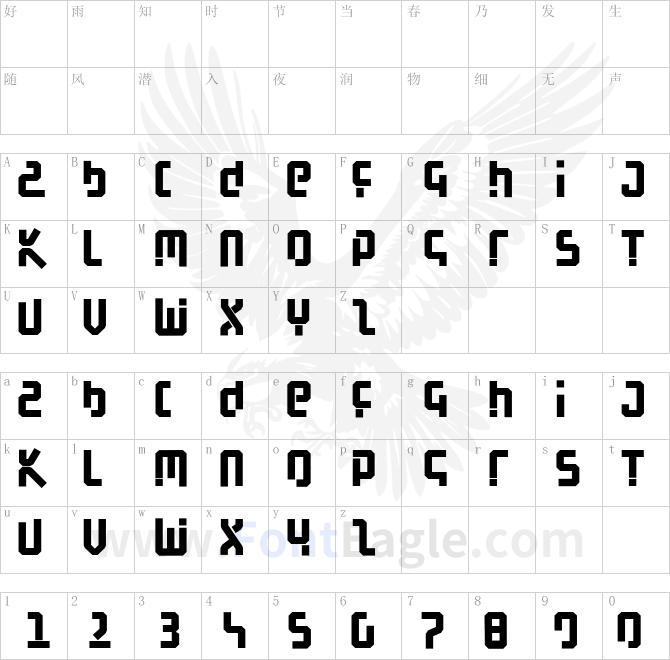
BauAHaus-Black is a great font, widely used in graphic design, single-page menu design, poster design and other fields, and is deeply loved by designers.BauAHaus-Black download.